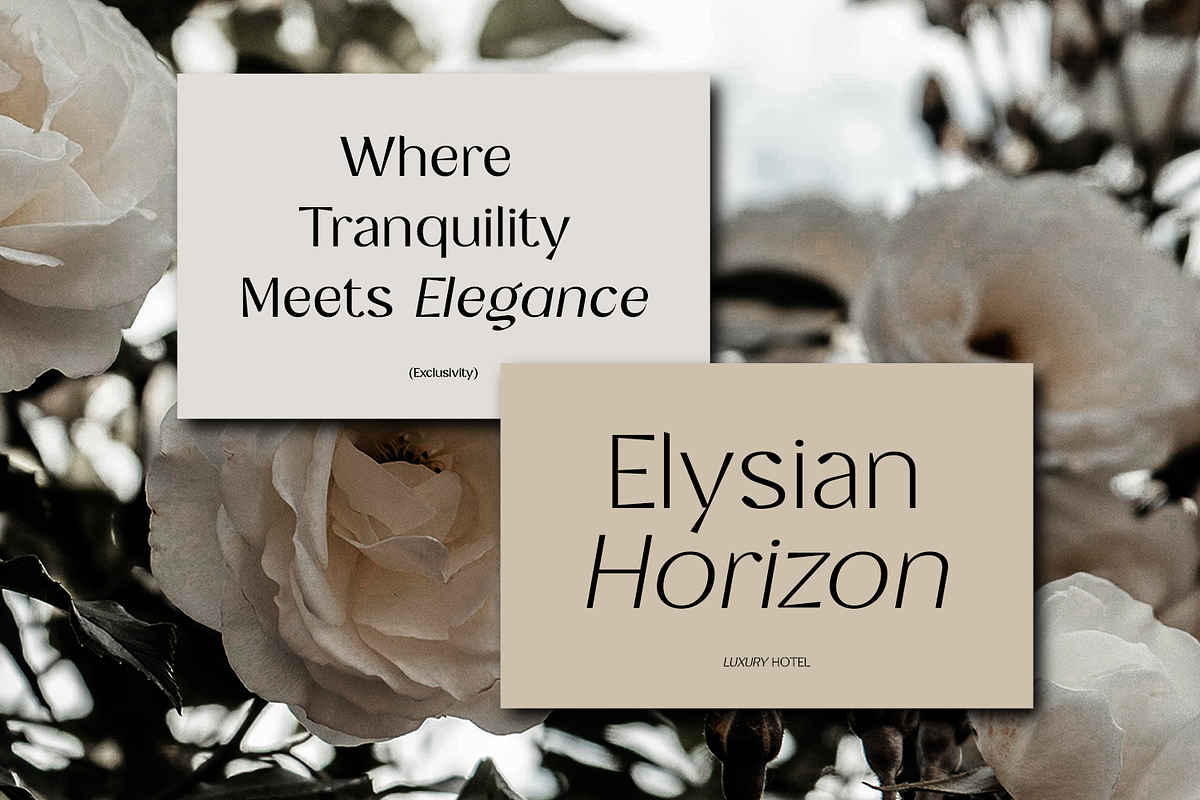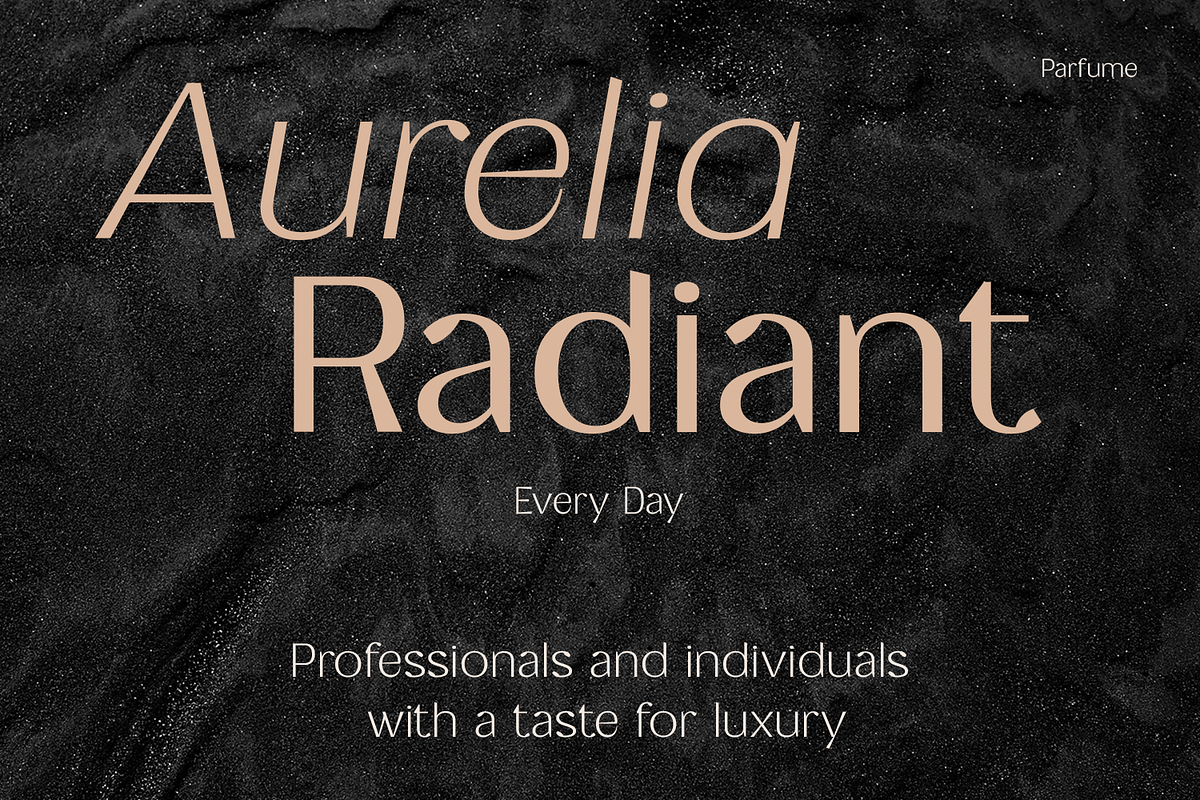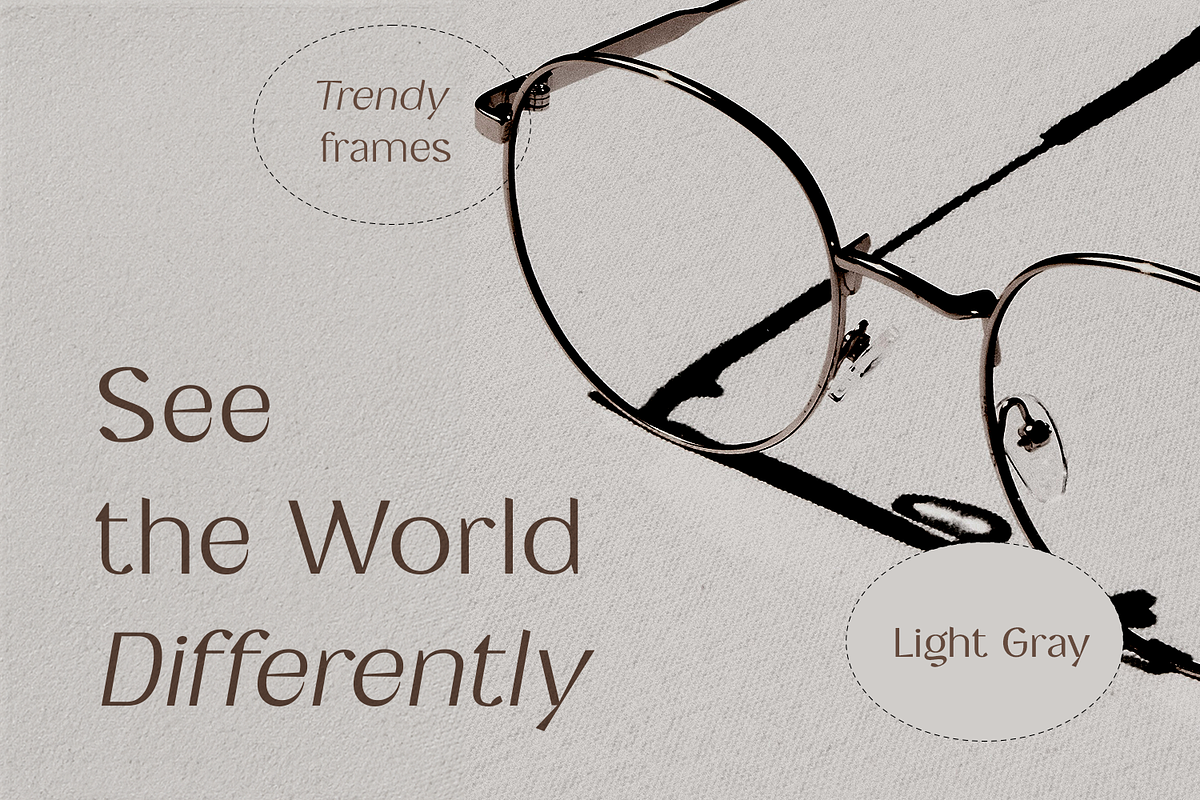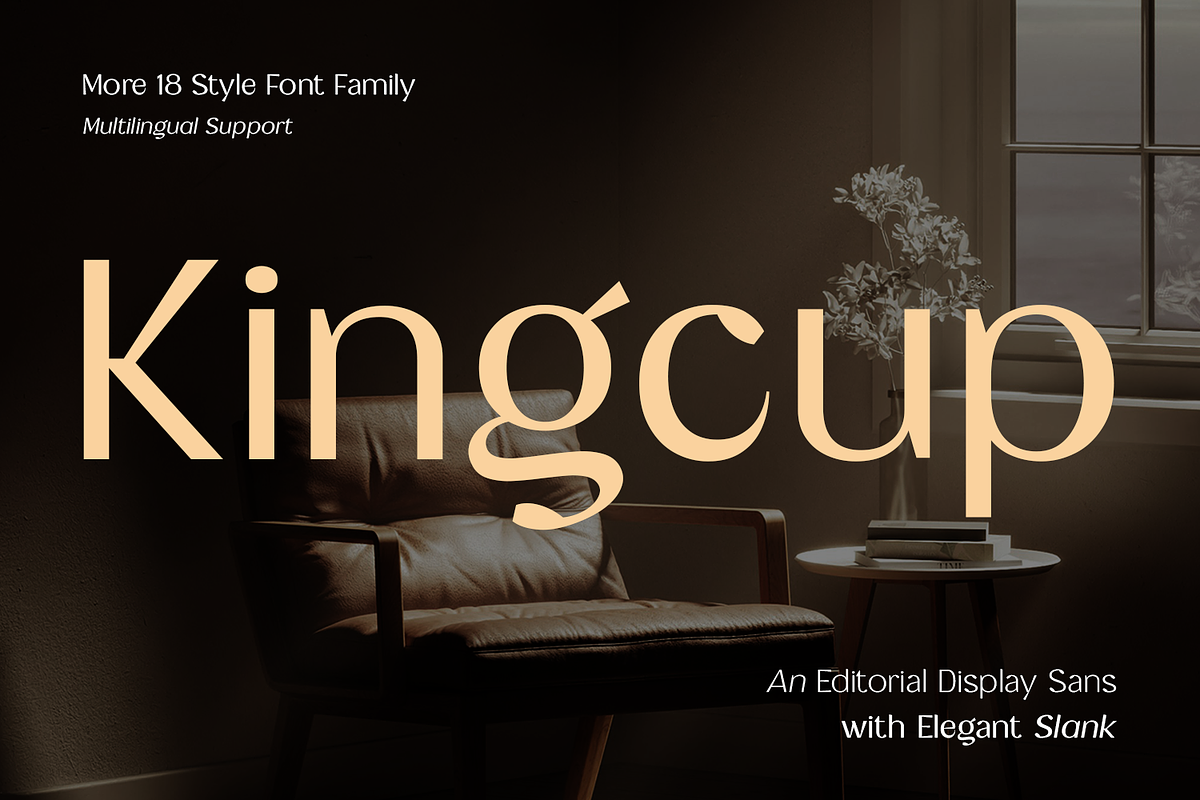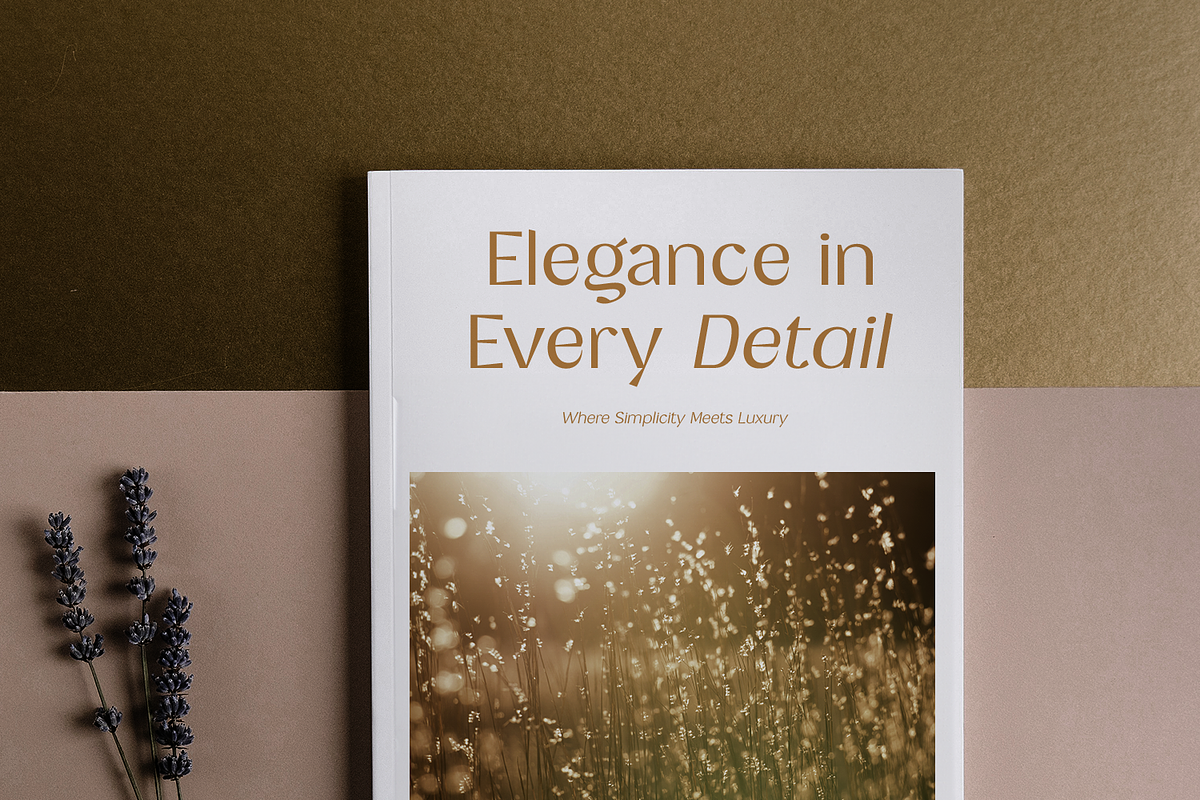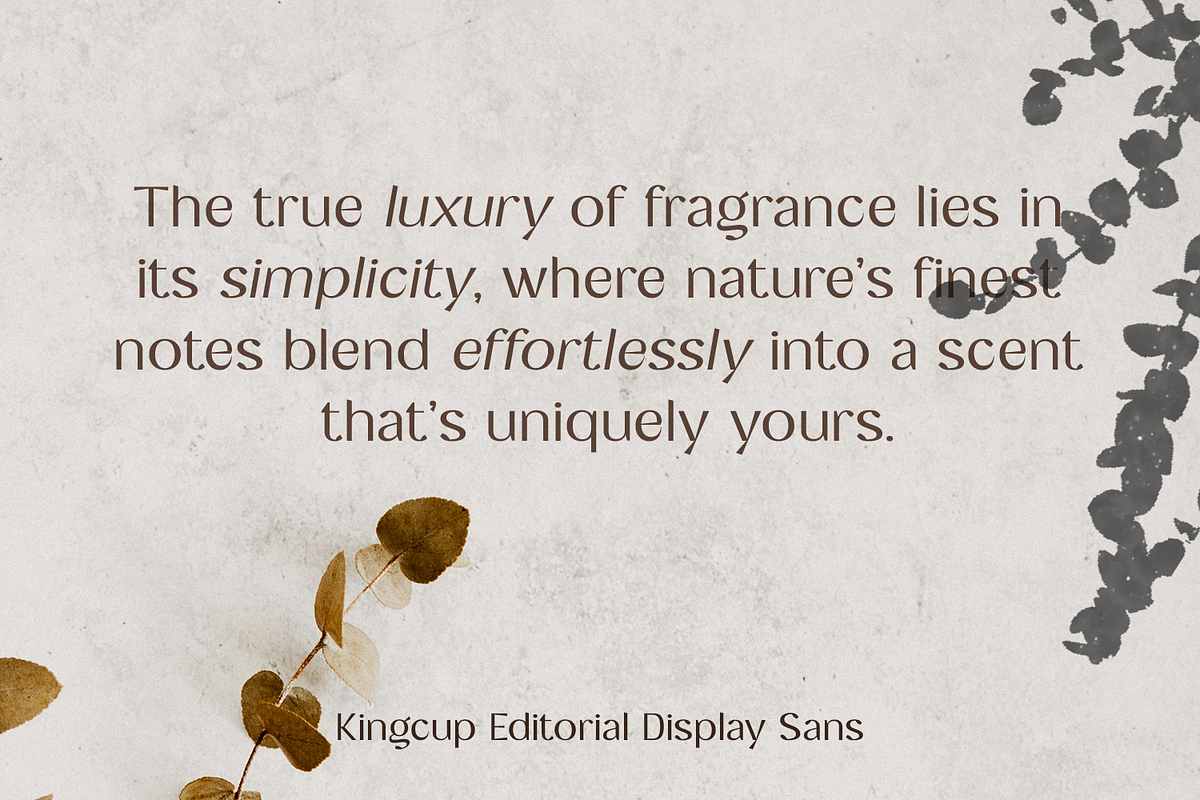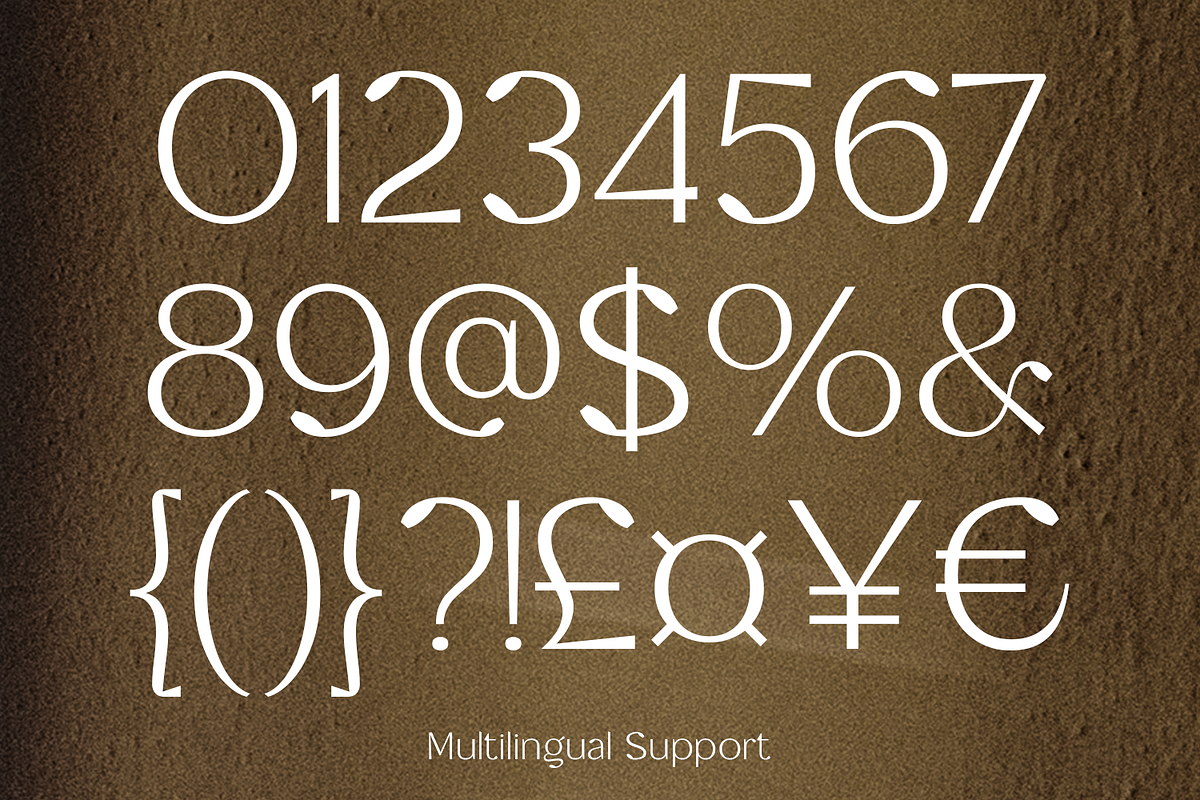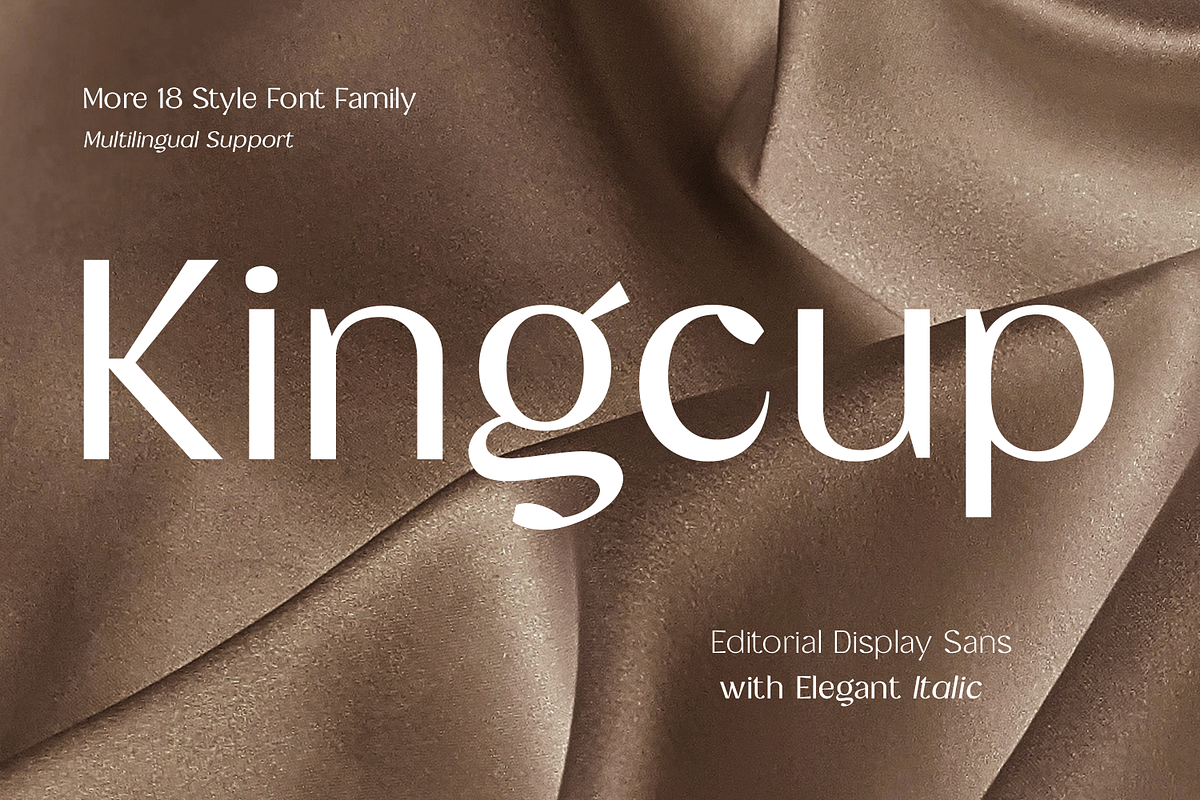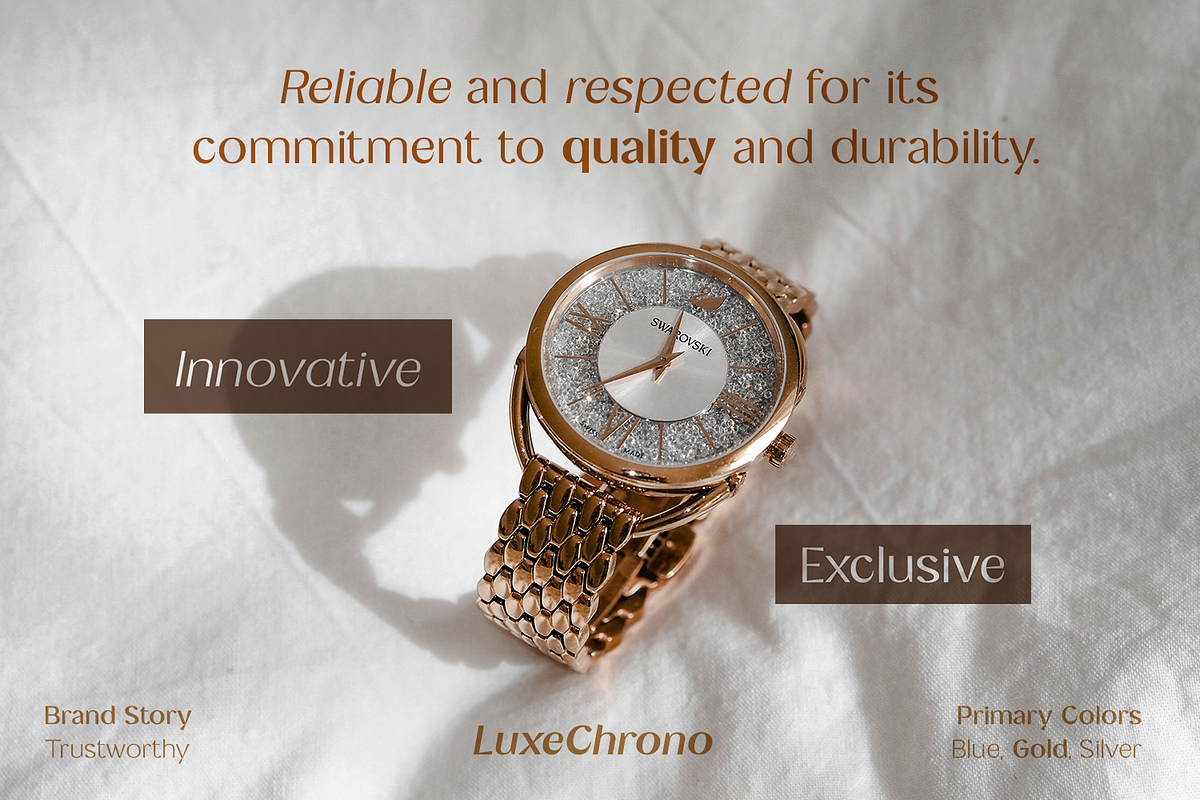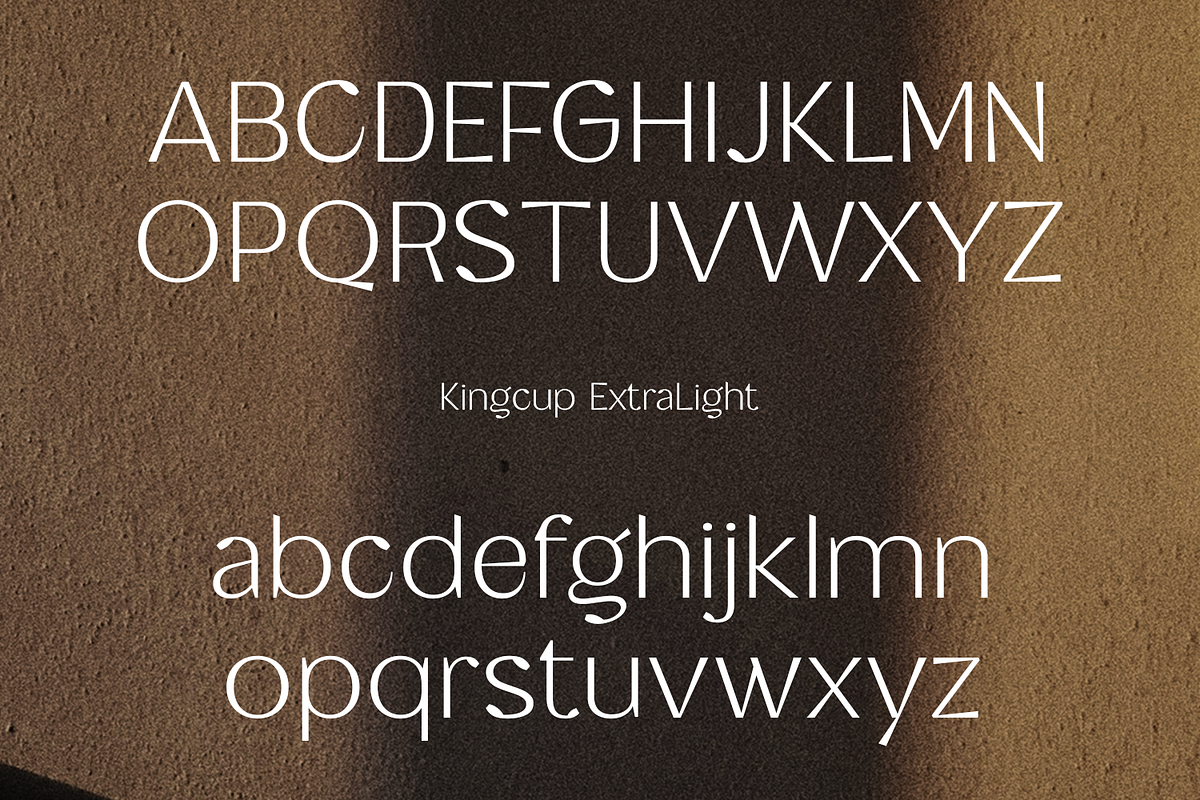
Kingcup - Editorial Display Sans
Kingcup is an elegant sans serif typeface with 18 variants, including variable weights and italics. Its clean lines and refined details make it perfect for a wide range of projects like branding, logos, wedding designs, social media posts, advertisements, and product packaging. Kingcup is highly readable and adapts seamlessly to both web design and print media, offering a polished and professional look for any project, from invitations to editorial layouts.
- 18 Font + Italic
- International characters (Multilingual)